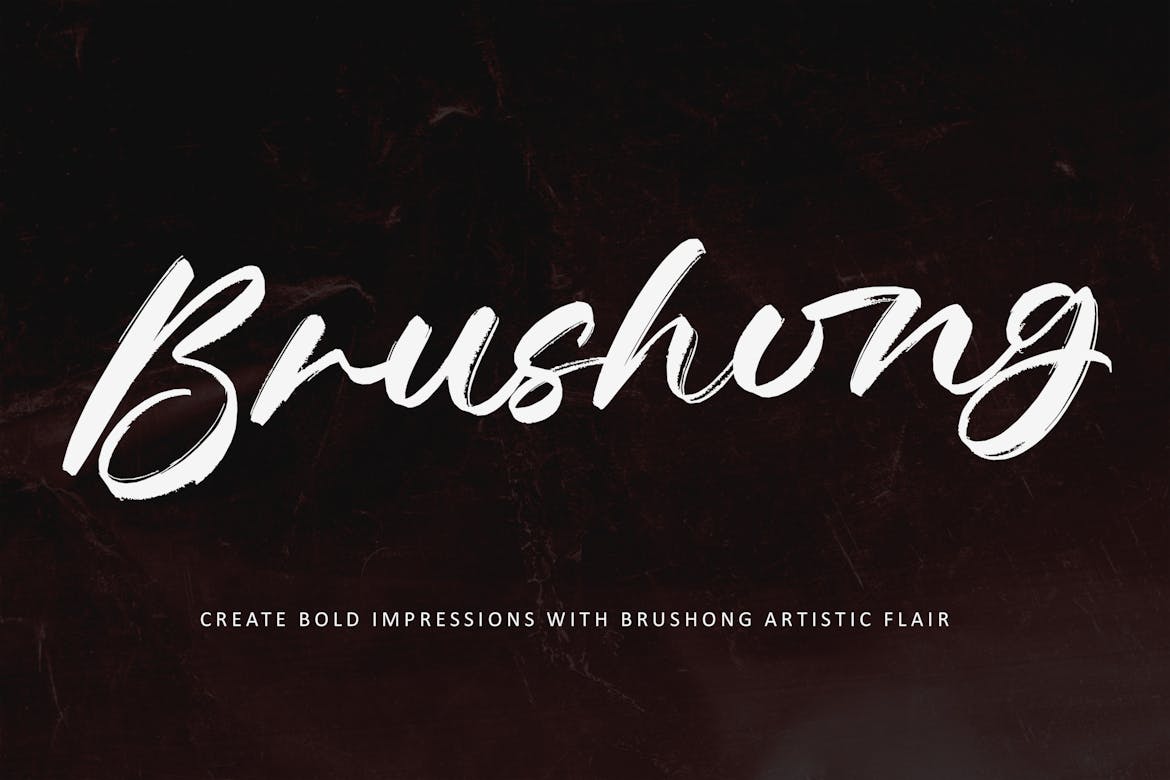
Brushong Font
Perfect for artistic branding, invitations, social media graphics, packaging, logos, and poster designs.
The Brushong Font excites designers with its dynamic brushstroke style that blends elegance and energy, creating a hand-painted, authentic look for creative projects.
The Brushong Font Free Download is a beautifully crafted typeface that mimics the fluidity and texture of natural brush strokes. It’s perfect for projects that need a touch of artistic flair and personality. Whether you’re working on branding, event invitations, or digital artwork, Brushong adds a lively, handcrafted vibe that grabs attention.
One of the key features of Brushong Font is its versatility. It works well for both large display text and smaller body copy, maintaining readability while showcasing its unique brush texture. This makes it ideal for a variety of uses, from fashion branding to creative social media posts.
In branding, Brushong conveys creativity, warmth, and authenticity. It pairs beautifully with soft color palettes, textured backgrounds, and minimalist layouts, making it a favorite for boutique brands, artists, and creative agencies.
For digital projects, this font elevates social media visuals, website headers, and promotional content with its expressive strokes. Its dynamic style helps your design stand out in crowded digital spaces, creating a memorable impression.